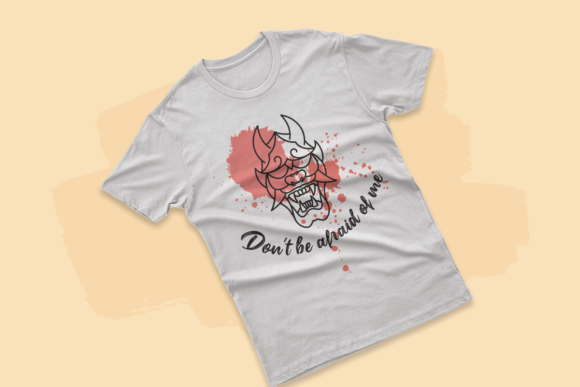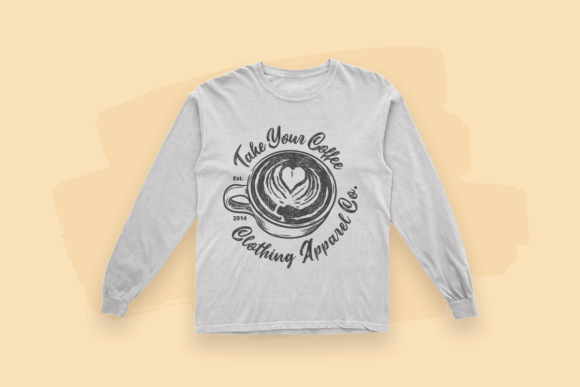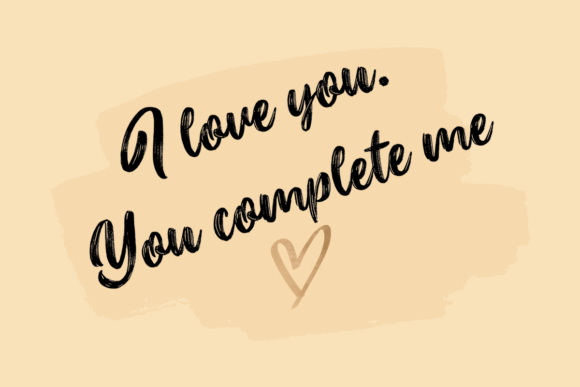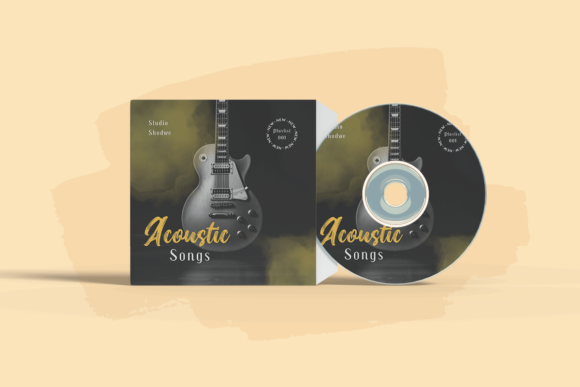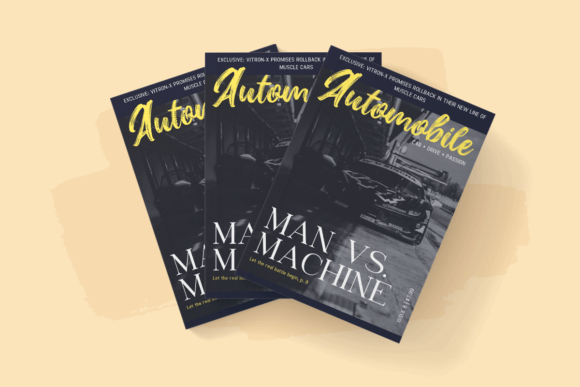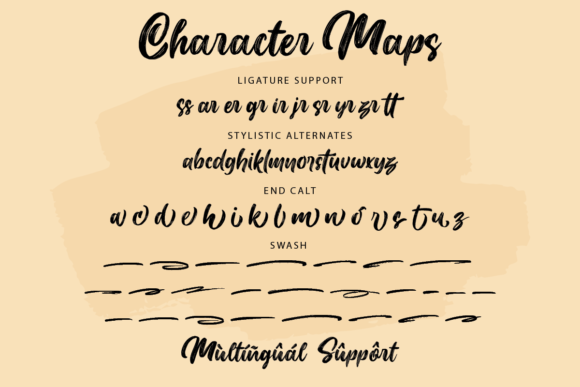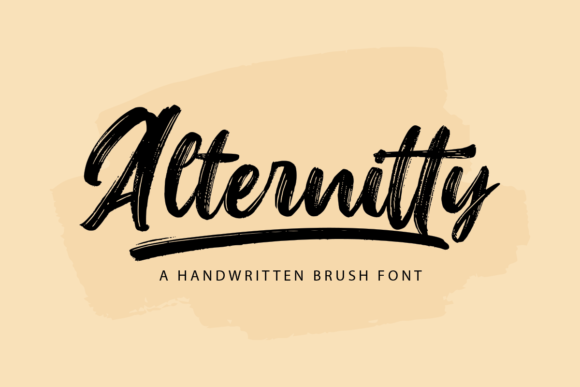
Introducing Alternitty Brush Font: Elevate Your Designs with Elegance and Sophistication
Are you on the hunt for a font that exudes class, sophistication, and a touch of elegance? Look no further than the Alternitty Brush Font. This beautifully crafted handwritten font is designed to make your designs stand out from the crowd, and its versatility will leave you wanting more. In this article, we’ll dive into the world of Alternitty and explore its features, benefits, and uses, so you can unlock its full potential and take your designs to the next level.
The Story Behind Alternitty Brush Font
Alternitty Brush Font is a masterpiece created with the help of a pen, giving it a unique and organic feel. The font’s design is inspired by the beauty of handwritten script, with flowing lines and curves that evoke a sense of luxury and refinement. Its classy and sophisticated style makes it perfect for designers and crafters looking to add a touch of elegance to their work.
Key Features of Alternitty Brush Font
- Versatile Style: Alternitty Brush Font boasts an incredibly versatile style that can be used in a wide range of design projects, from branding and advertising to packaging and digital media.
- Elegant Swashes: The font includes elegant swashes that add a touch of luxury to your designs. These swashes can be used to create stunning headings, titles, and even social media graphics.
- PUA Encoded: Alternitty Brush Font is PUA (Private Use Area) encoded, which means you can access all the glyphs and swashes with ease. This makes it simple to use and customize the font to suit your design needs.
Benefits of Using Alternitty Brush Font
So, why choose Alternitty Brush Font for your design projects? Here are just a few benefits you can expect:
- Stand Out from the Crowd: With Alternitty Brush Font, you can create designs that are truly unique and eye-catching. Its elegant style and flowing lines will set your work apart from the competition.
- Save Time and Effort: The font’s PUA encoding and included swashes make it easy to use and customize, saving you time and effort in the design process.
- Endless Design Possibilities: Alternitty Brush Font can be used in a wide range of design projects, from logos and branding to social media graphics and packaging. The possibilities are endless!
Design Ideas with Alternitty Brush Font
Now that we’ve explored the features and benefits of Alternitty Brush Font, let’s take a look at some design ideas to get you started:
- Logo Design: Use Alternitty Brush Font to create a stunning logo for your brand or business. Its elegant style and flowing lines make it perfect for creating a sophisticated and memorable logo.
- Social Media Graphics: Create eye-catching social media graphics with Alternitty Brush Font. Its swashes and glyphs can be used to add a touch of luxury and elegance to your posts and stories.
- Wedding Invitations: Alternitty Brush Font is perfect for creating beautiful wedding invitations, stationery, and other wedding-related designs. Its elegant style and flowing lines evoke a sense of romance and sophistication.
In conclusion, Alternitty Brush Font is a classy and flowing handwritten font that is sure to elevate your designs to the next level. Its elegant style, versatile features, and PUA encoding make it a must-have for designers and crafters looking to add a touch of luxury and sophistication to their work. Whether you’re creating logos, social media graphics, or wedding invitations, Alternitty Brush Font is the perfect choice. So why wait? Fall in love with Alternitty Brush Font and start creating spectacular designs today!